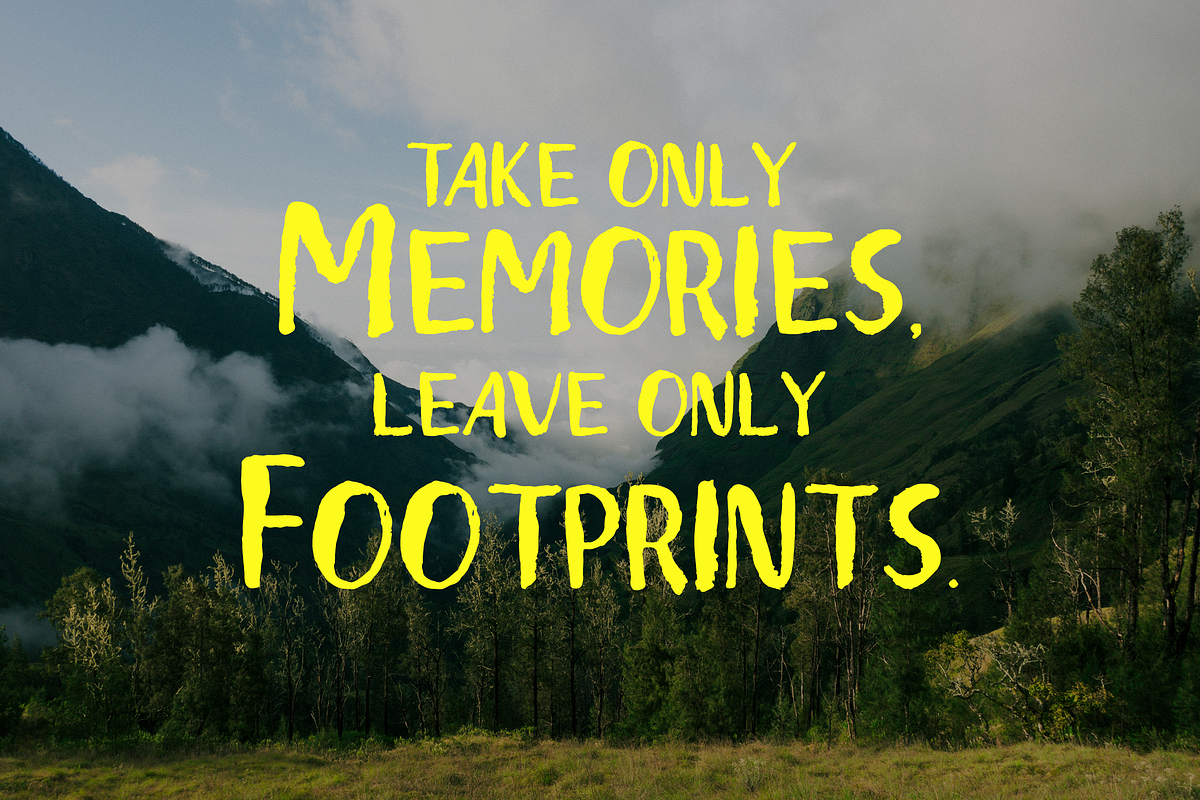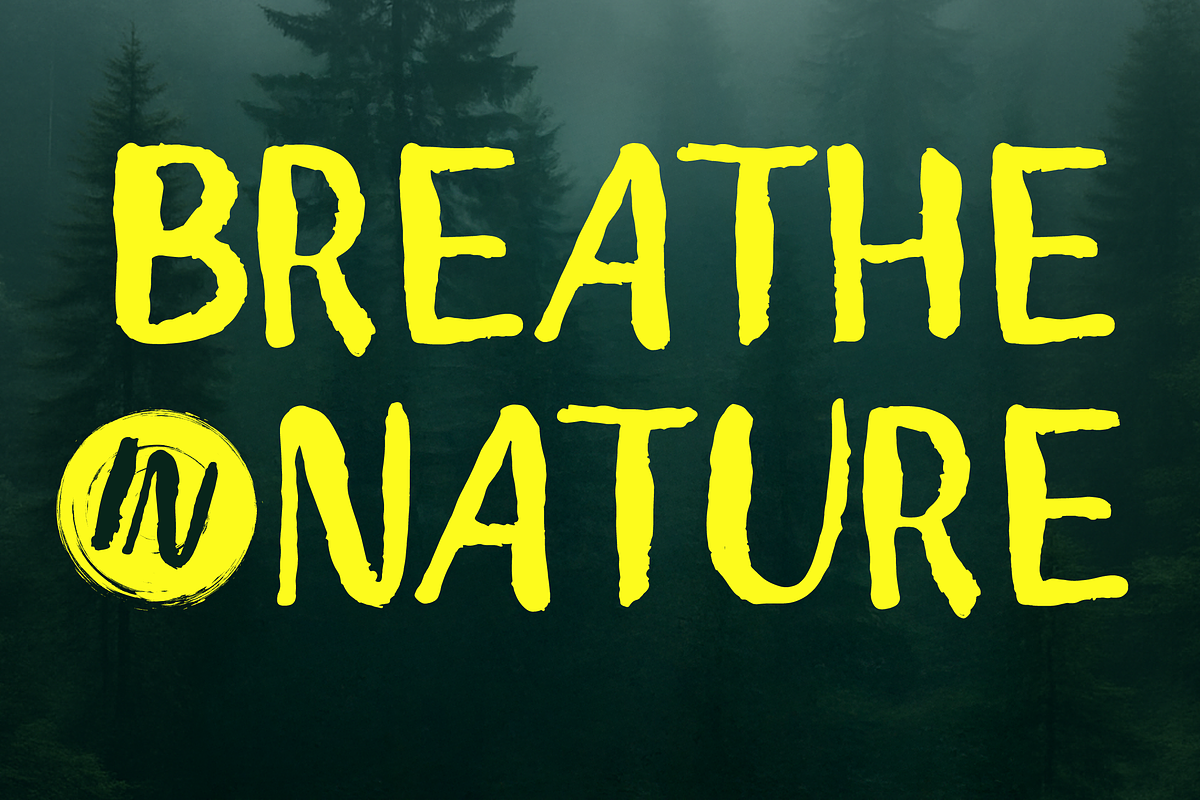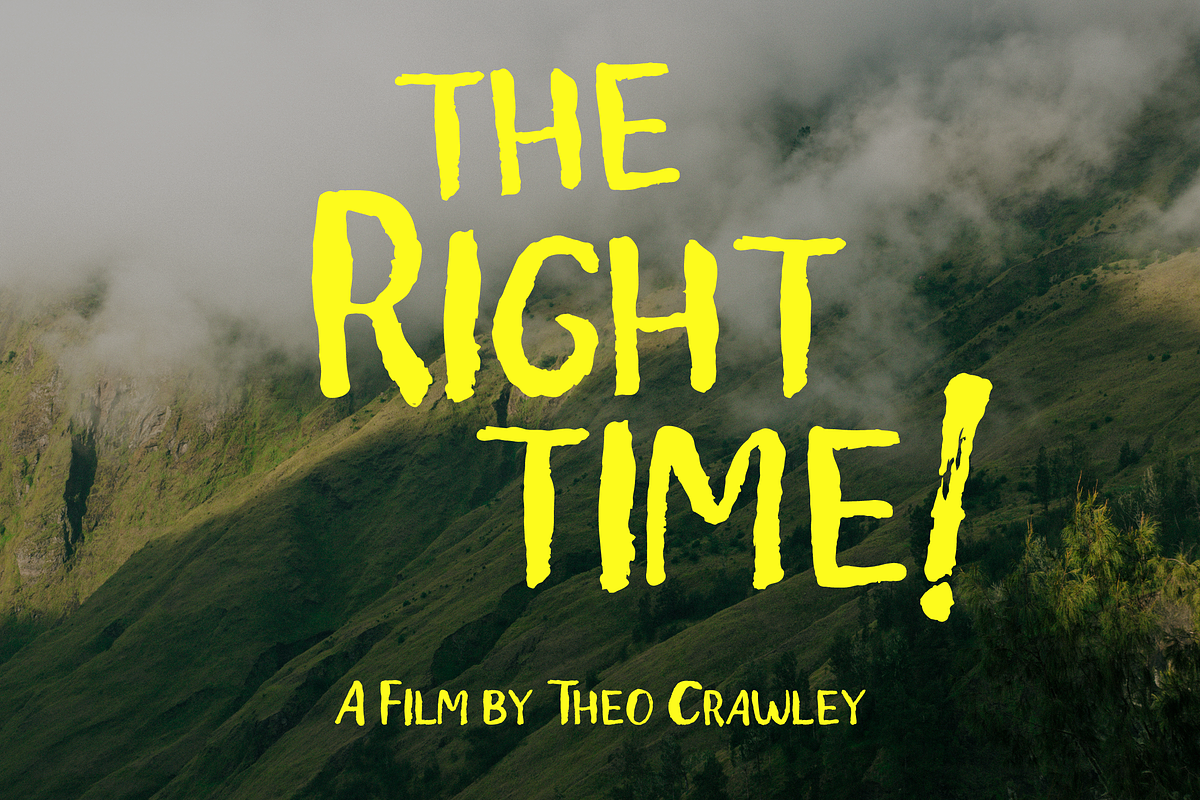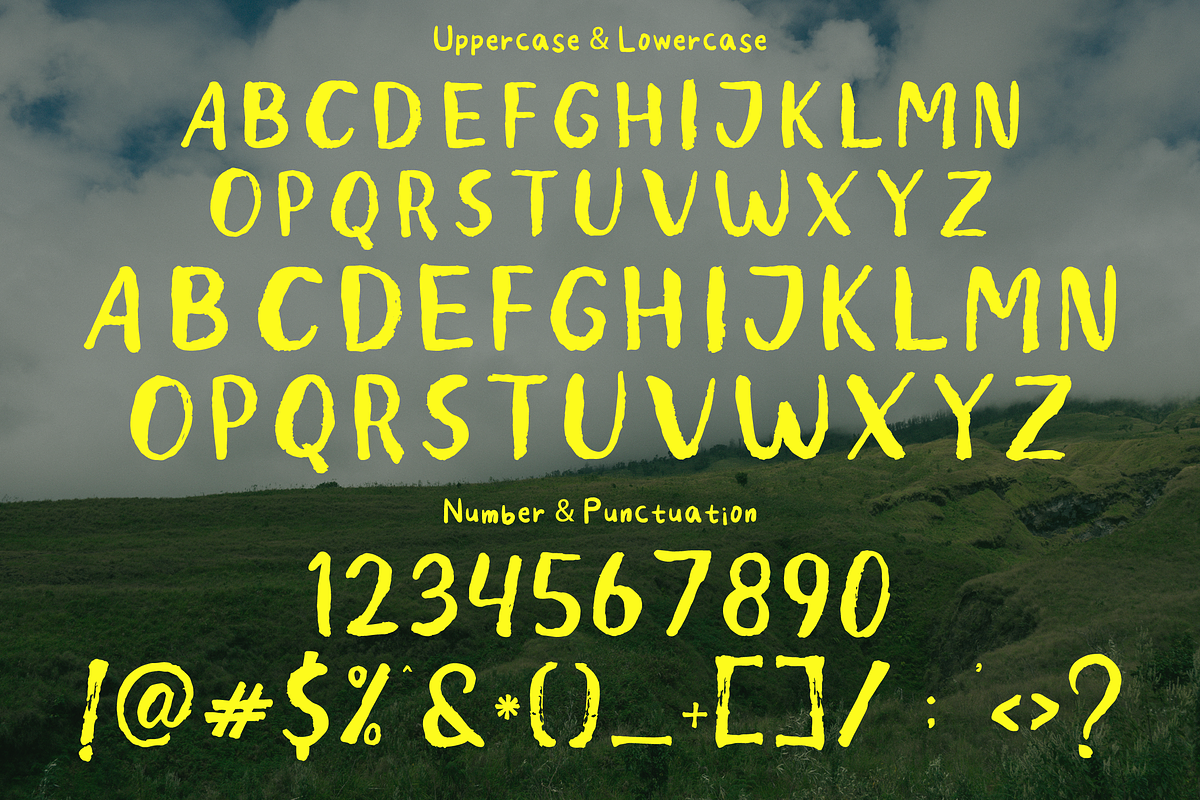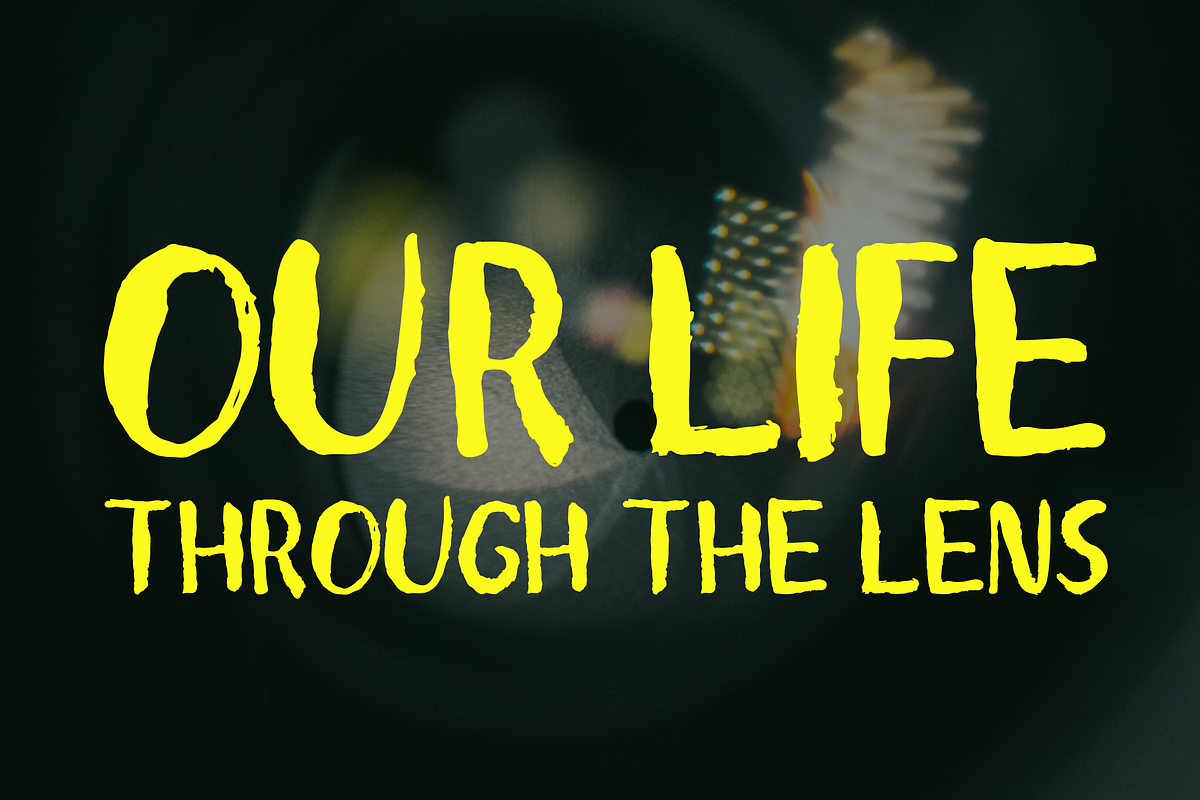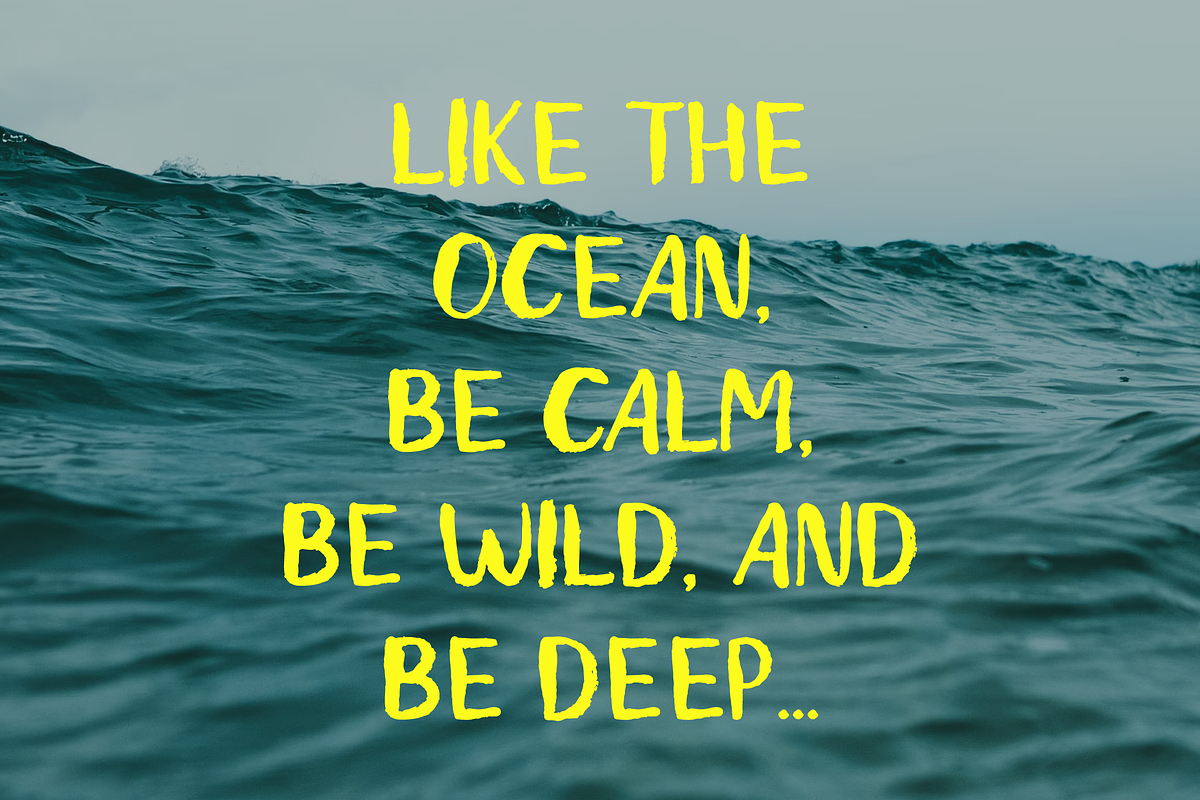
Sandra - Dry Brush Font
Bold, Raw, and Expressive — SANDRA is a dry brush typeface that captures the raw energy of hand-painted lettering. With bold, textured strokes and natural imperfections, this all-caps font brings a sense of movement and authenticity to any design. Whether you’re working on posters, album covers, branding, or social media graphics, it delivers a striking presence that can’t be ignored.
Designed with multilingual support, SANDRA doesn’t just speak one language—it speaks many, making it perfect for global creatives. Its gritty aesthetic adds attitude and edge, while the handcrafted feel ensures your message comes through loud and clear.